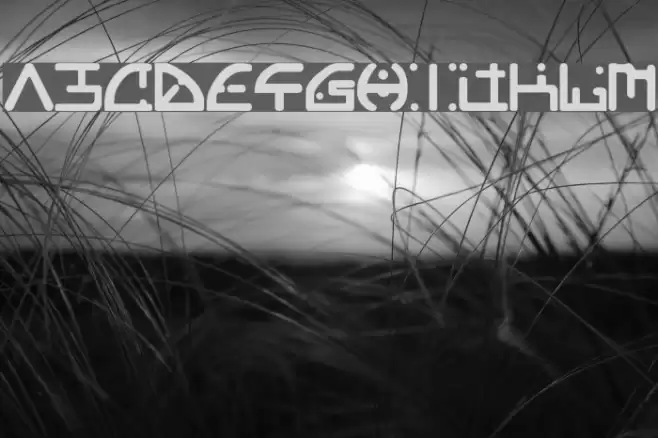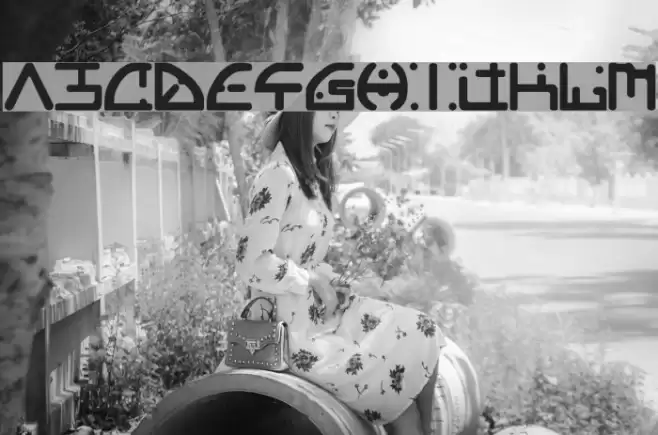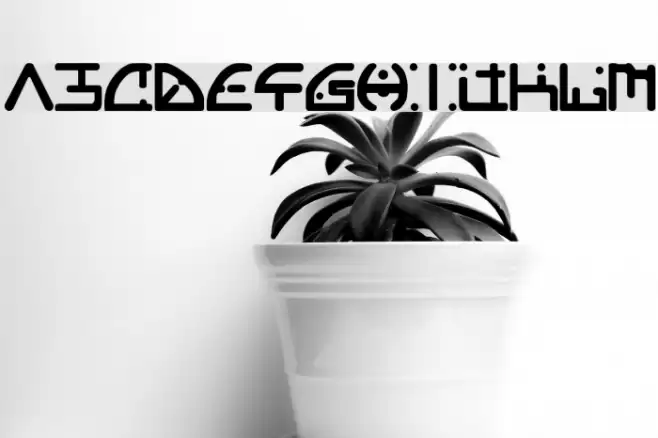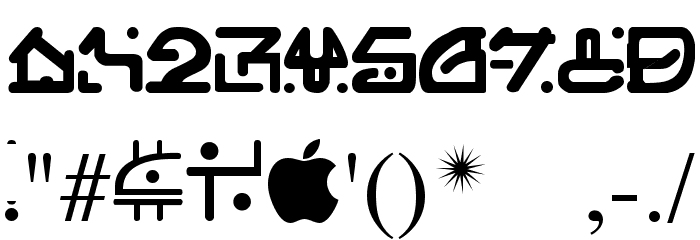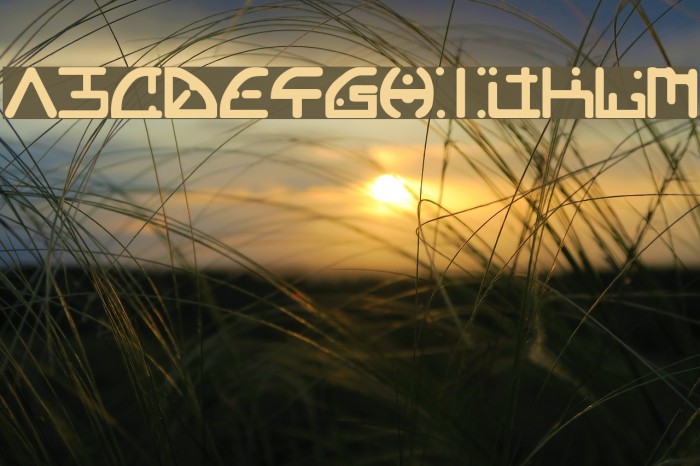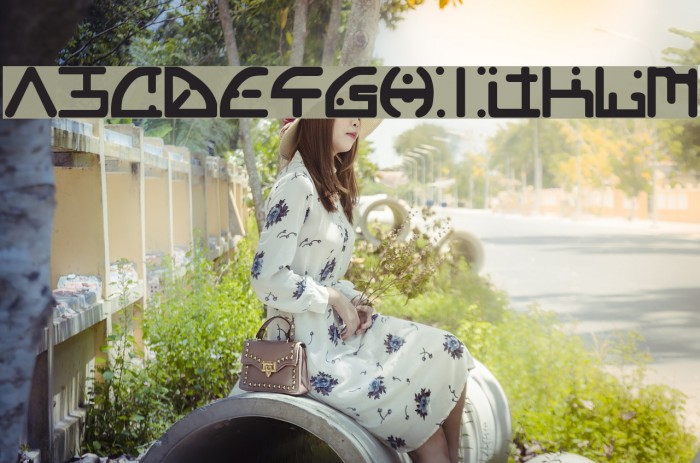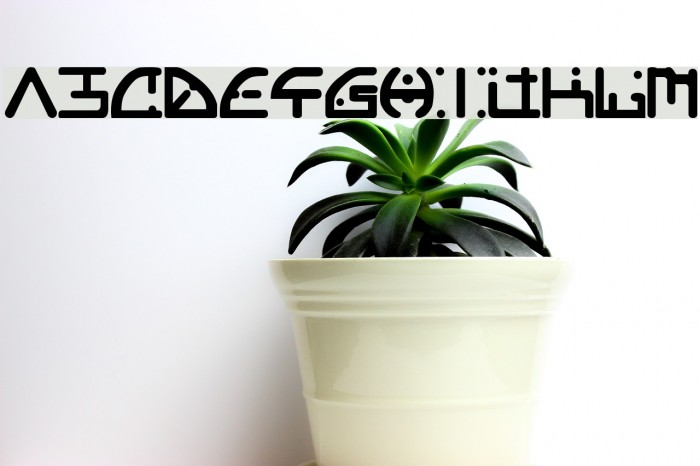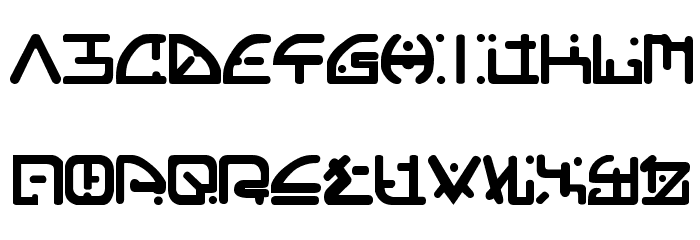
Orgy Font
Orgy Description
This font features a futuristic and geometric design, characterized by bold, rounded shapes and a unique, almost alien-like aesthetic. The characters are constructed with a combination of thick and thin lines, creating a distinct visual contrast. The font includes uppercase and lowercase letters, numbers, and a variety of special characters. Its design is reminiscent of digital or sci-fi themes, making it suitable for projects that require a modern and unconventional look. The overall style is decorative and eye-catching, with a focus on symmetry and balance.
A futuristic, geometric font with bold, rounded shapes and a sci-fi aesthetic from Futuristic fonts.
- Proposed Projects: Ideal for sci-fi movie posters, video game titles, tech branding, and futuristic-themed events.
- Overall Style: Futuristic, Decorative